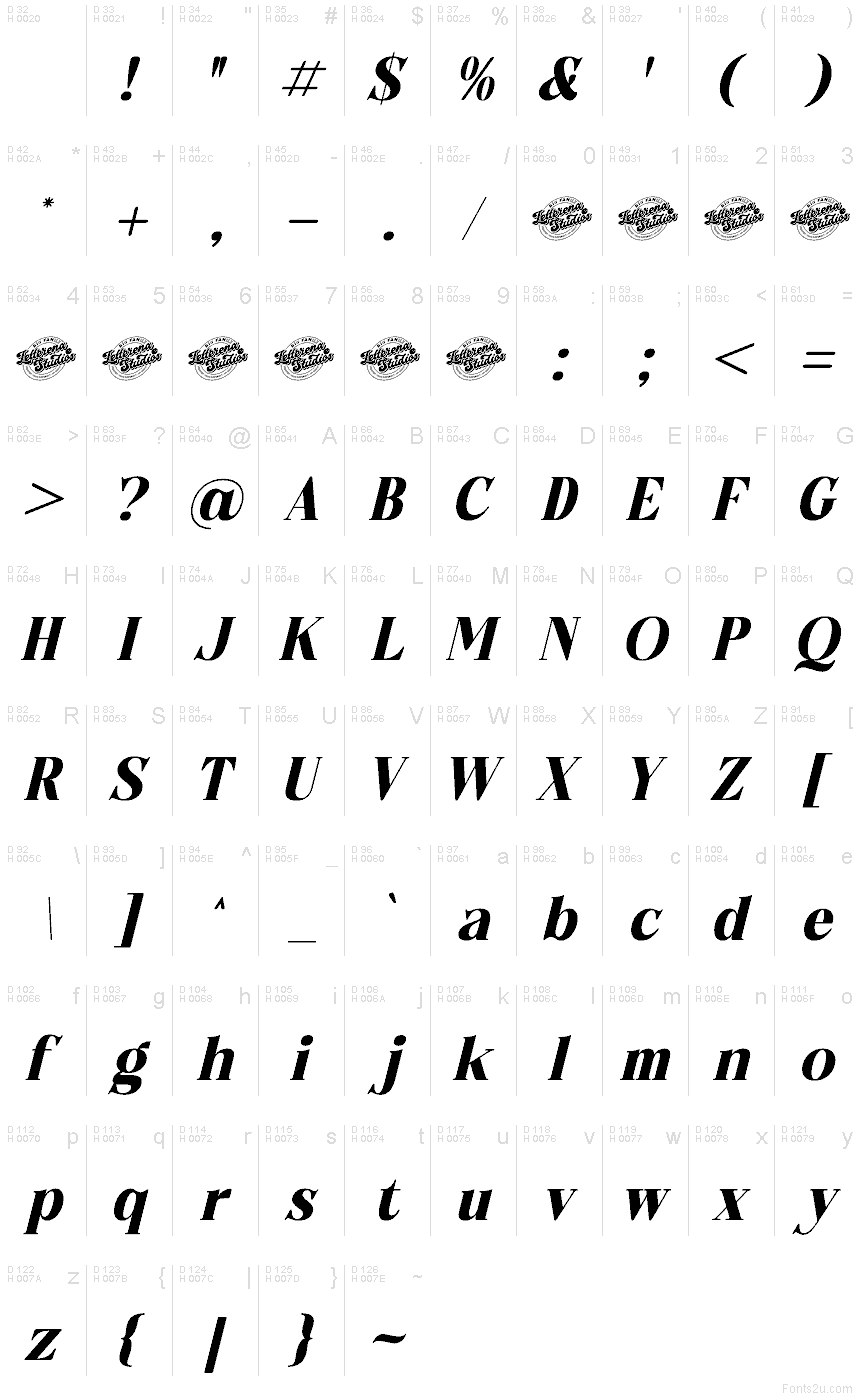
Monstac Realmid DEMO VERSION Italic
Monstac Realmid Italic font by Letterena Studios is a free italic serif typeface. It leans with confident momentum, mixing inky thick strokes with crisp, blade-like serifs that catch the light. Letters feel elegantly compressed and tightly knit, giving headlines a sleek, luxurious sweep without losing clarity. Within the Monstac Realmid family, this cut brings the drama.
Using Monstac Realmid Italic, you’ll get instant polish for editorial mastheads, fashion branding, cosmetics packaging, wine labels, event invitations, and refined logotypes. The tight rhythm delivers impact in short phrases and name marks; give it a touch of breathing room and it sings. Pair this free font with a calm, modern sans for supporting text to let the italic take center stage.